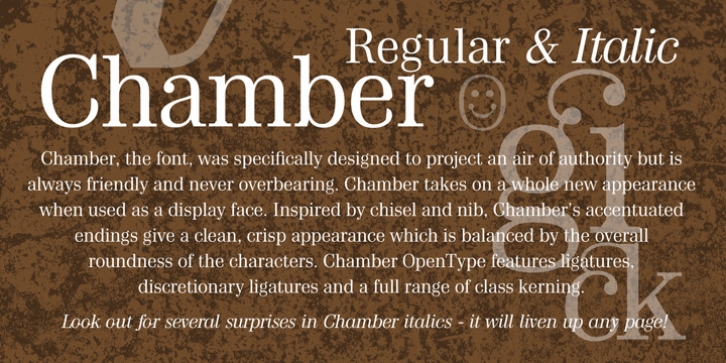
Chamber downloadDesigner: Robbie de Villiers
Publisher: Wilton Foundry
Chamber, the font, was specifically designed to project an air of authority but is always friendly and never overbearing.
Chamber takes on a whole new appearance when used as a display face. Inspired by chisel and nib, Chamber’s accentuated endings give a clean, crisp appearance which is balanced by the overall roundness of the characters. Chamber OpenType features ligatures, discretionary ligatures and a full range of class kerning.
Look out for several surprises in Chamber italics - it will liven up any page! We included a custom smiley face and will be including smiley faces tailored to each font that we develop from now on. The world needs more smiles!